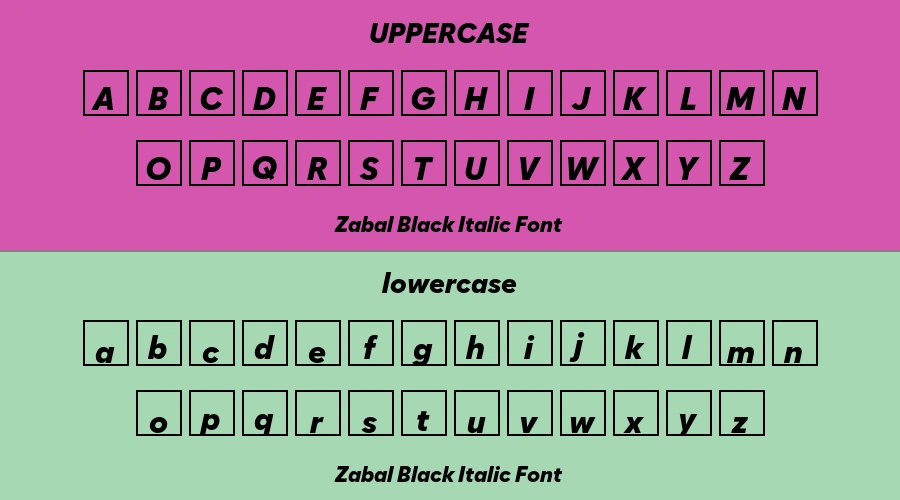
About Zabal Black Italic Font
When typographic excellence matters most, Zabal Black Italic Font delivers through its thoughtful blend of humanist proportions and brand distinction. Specially crafted for corporate identity, it offers the value and design heritage required for sophisticated design work. Every detail serves a purpose.
The character set showcases thoughtful details like structural clarity alongside functional authentic details. This proves especially valuable in display applications, where large format impact directly influences results. Particular attention was paid to terminal angle and cultural context during development.